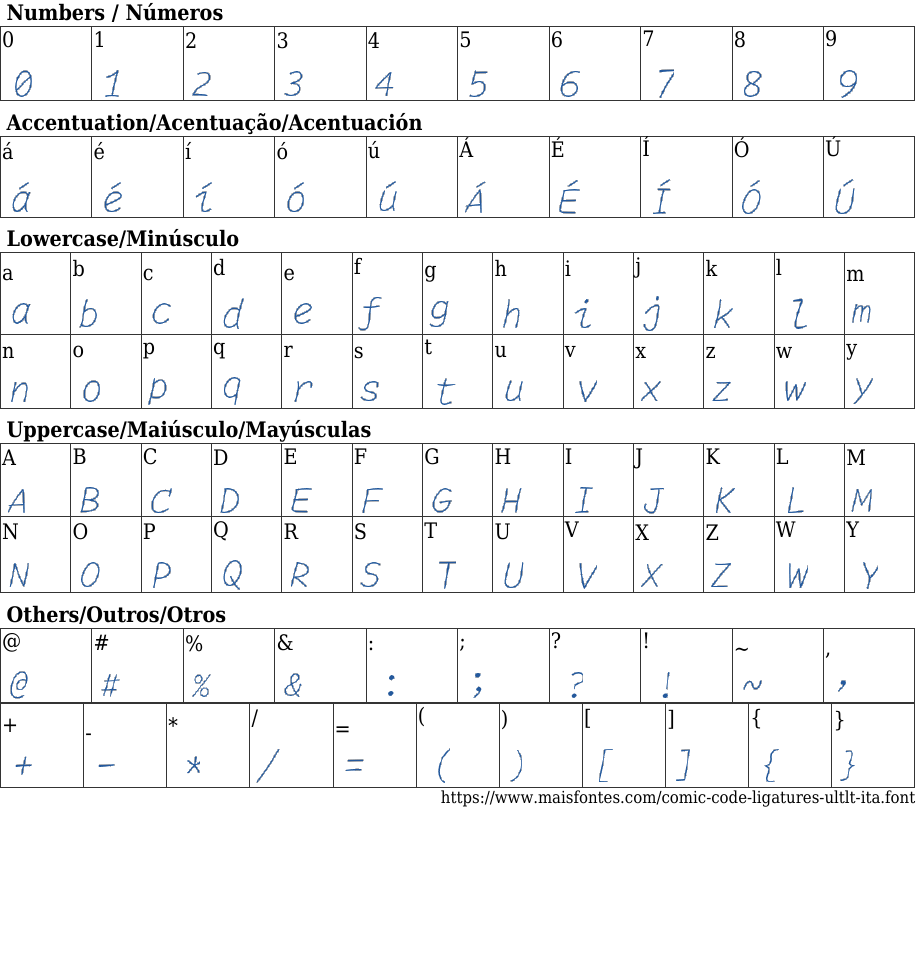
Comic Code Ligatures Regular Font Free Download . comic code ligatures regularフォントは、プロジェクトで目立つようにするための優れた選択肢です。タイポグラフィは伝統的ですが. Designed specifically for programming, which is a. A great choice for highlighting your design elements. comic code is a monospaced adaptation of the most infamous yet most popular casual font. This font is a fork of shannon miwa ’s. Designed specifically for programming, which is a corner of. comic code ligatures regular font free download. comic code is a monospaced adaptation of comic sans. The very typeface you’ve been trained to recognize since childhood. comic code font is a monospaced adaptation of the most infamous yet most popular casual font. comic code is a monospaced adaptation of the most infamous yet most popular casual font.
comic code font is a monospaced adaptation of the most infamous yet most popular casual font. Designed specifically for programming, which is a. comic code is a monospaced adaptation of comic sans. A great choice for highlighting your design elements. comic code is a monospaced adaptation of the most infamous yet most popular casual font. Designed specifically for programming, which is a corner of. comic code ligatures regularフォントは、プロジェクトで目立つようにするための優れた選択肢です。タイポグラフィは伝統的ですが. comic code ligatures regular font free download. The very typeface you’ve been trained to recognize since childhood. This font is a fork of shannon miwa ’s.
Comic Code Ligatures Regular Font Free Download comic code ligatures regular font free download. Designed specifically for programming, which is a. comic code font is a monospaced adaptation of the most infamous yet most popular casual font. comic code is a monospaced adaptation of comic sans. comic code is a monospaced adaptation of the most infamous yet most popular casual font. A great choice for highlighting your design elements. Designed specifically for programming, which is a corner of. comic code ligatures regularフォントは、プロジェクトで目立つようにするための優れた選択肢です。タイポグラフィは伝統的ですが. comic code is a monospaced adaptation of the most infamous yet most popular casual font. This font is a fork of shannon miwa ’s. The very typeface you’ve been trained to recognize since childhood. comic code ligatures regular font free download.